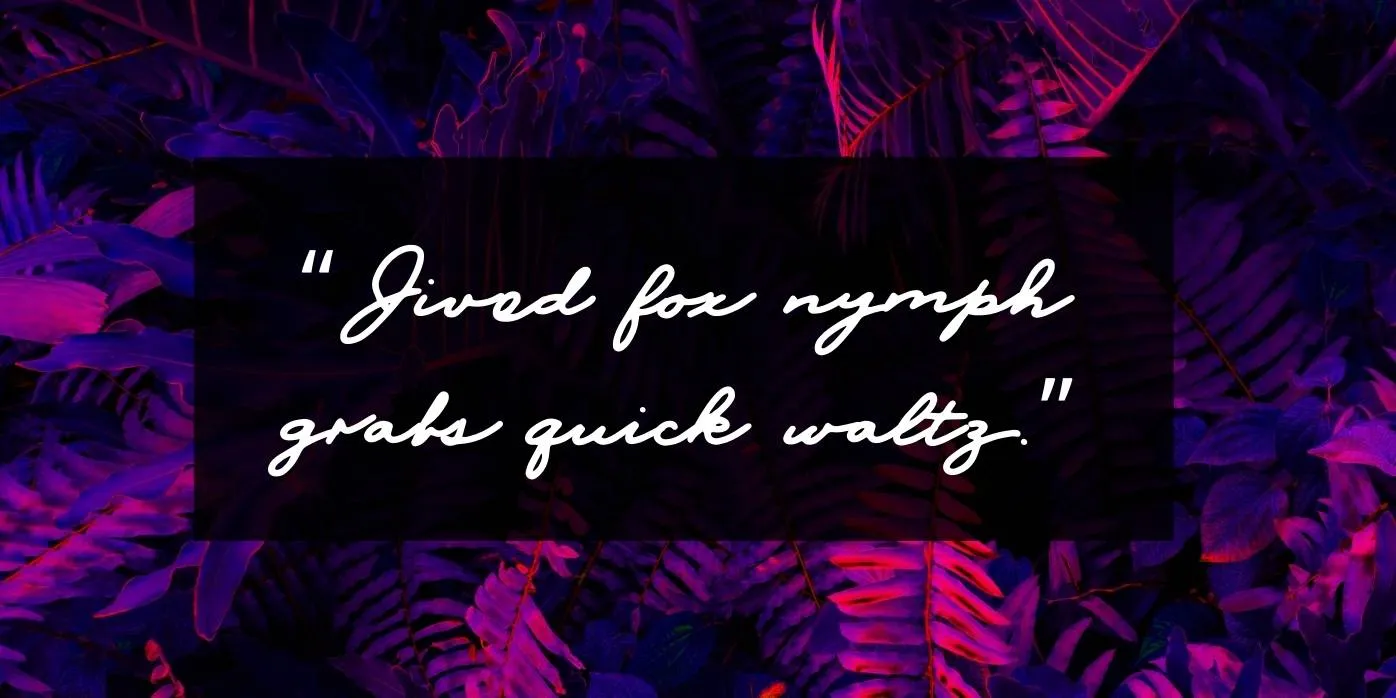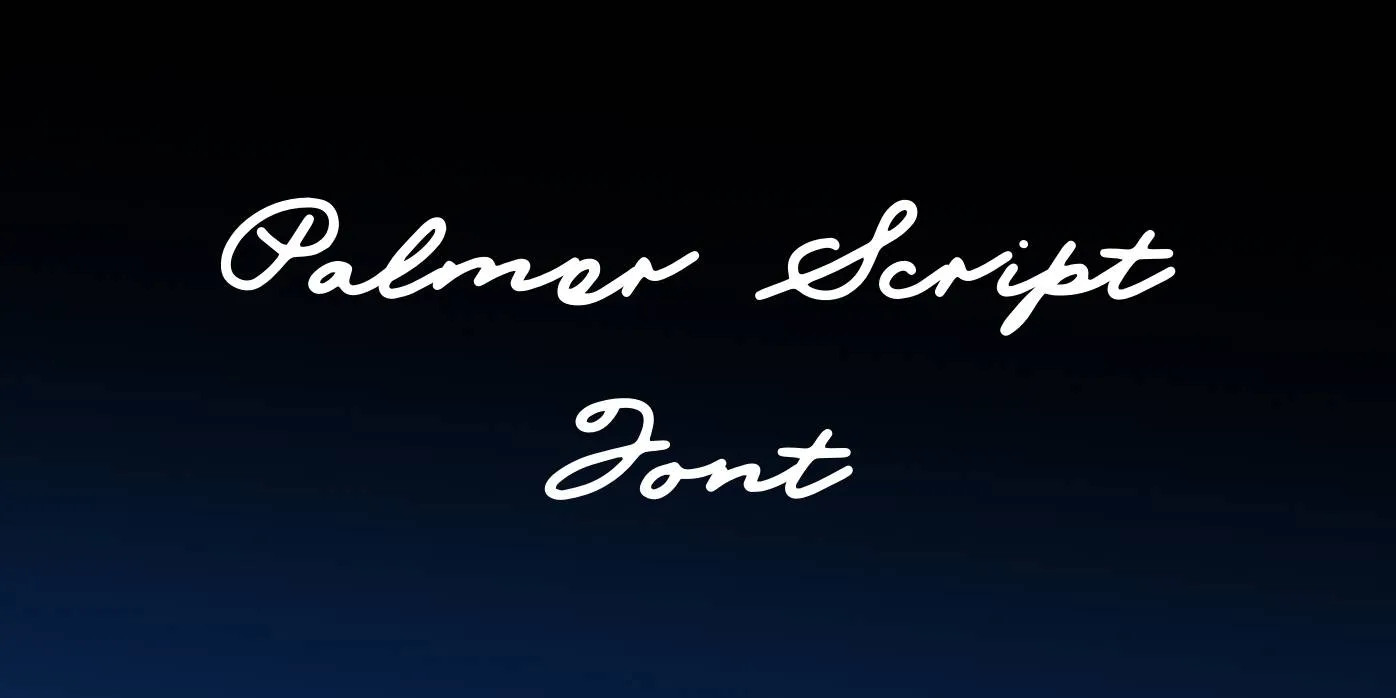
Palmer Script Font
In this post, we introduce a very gorgeous and glorious typeface known as Palmer Script Font. It belongs to the Script font family. Mikko Sumulong was the designer of this family. He released it on 15th May 2012.
Palmer Script Font has a very attractive look with its stylish texture. It contains True type features with classy glyphs. This elegant font is specially designed for headlines, logos, titles, and web designing purposes. You can easily create beautiful designs by using this versatile typeface.
Its copy and paste function is perfect for different text designs. Its alternative shella clean font is perfect for different designs with the same features. This amazing font is available in two styles namely Regular and Bold. Each style comprises 207 characters along with 1000 units per em.